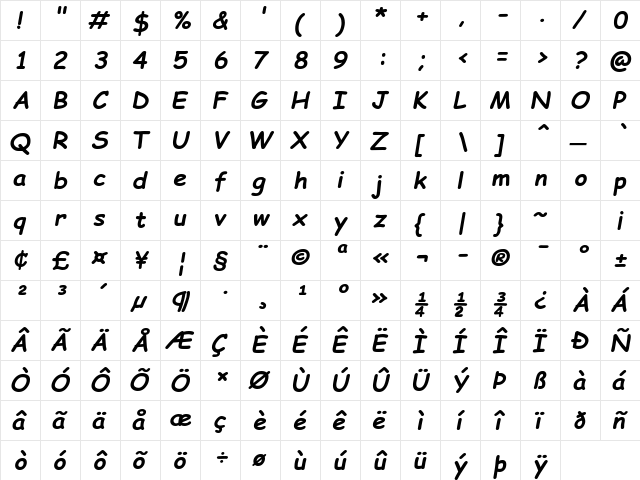
Comic Sans MS Bold Italic Font Preview
Comic Sans MS Bold Italic
Comic Sans MS Bold Italic Font Details
| Foundry | Microsoft Corporation |
| Designer | Vincent Connare, Terrance Weinzierl |
Design Context for Comic Sans MS Typeface
Comic Sans MS trades formality for fun, with bouncy, characterful letterforms that bring warmth and energy to any project. The slanted form adds forward momentum and visual energy.
Well-suited to food and beverage brands with personality, educational materials, and fun-forward identities.
Font Pairing: Pairs well with a rounded or humanist sans for body copy, maintaining the friendly tone without relying on Comic Sans MS to carry extended reading.
Pro Tip: Use Comic Sans MS at larger display sizes where its expressive character can land. Pair with a clean, simple sans for body copy to maintain readability.